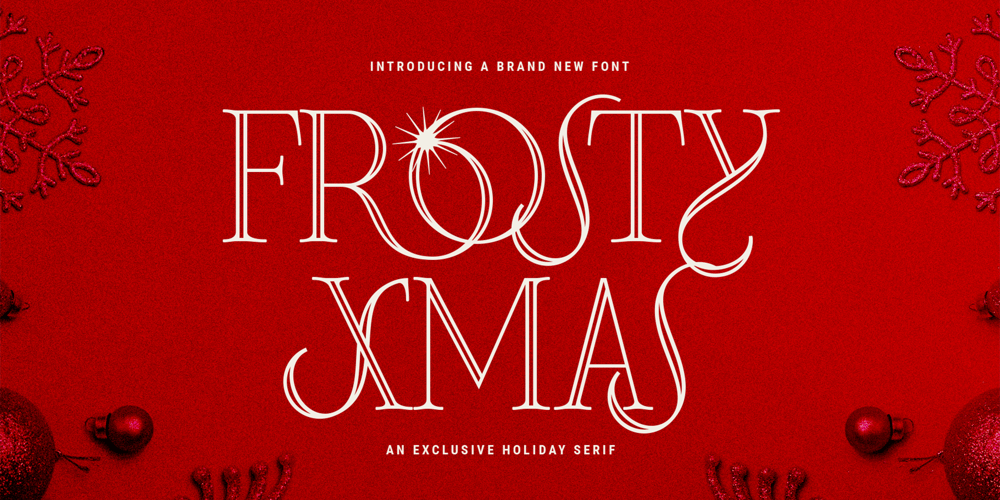
Frosty Xmas Font Family was designed by SilverStag and published by SilverStag. Frosty Xmas contains 1 styles and family package options. Get ready to unwrap a typographic delight with Frosty Xmas, the holiday-themed serif font designed to infuse your projects with festive charm and timeless elegance. With its soft round corners, delicate serifs, and all-uppercase characters, Frosty Xmas exudes a timeless charm that complements a wide range of holiday designs. Its classic serif letters, adorned with swirls, swashes, and star elements, add a touch of whimsy and magic to your creations.Whether you’re crafting holiday cards, designing festive branding, or creating typographic posters that echo the joy of the season, Frosty Xmas is your go-to companion. Its versatility knows no bounds, making it equally suited for standard branding, logo design, and a wide array of creative ventures.But that’s not all โ Frosty Xmas comes bundled with 40 hand-drawn holiday doodles, adding an extra layer of whimsy to your projects. From snowflakes to stockings, candy canes to Christmas trees, these doodles are the perfect embellishments for all your holiday-themed endeavors.Crafted with over 450 carefully designed glyphs, Frosty Xmas supports over 90 languages, making it a versatile tool for designers and crafters worldwide. Whether you’re creating holiday greeting cards, packaging labels, or typography posters, Frosty Xmas will infuse your designs with festive cheer.Elevate your designs, captivate your audience, and make this holiday season truly memorable with Frosty Xmas. The magic begins with each letter โ are you ready to unwrap the joy?Happy designing and Merry Frosty Xmas! ๐โจ